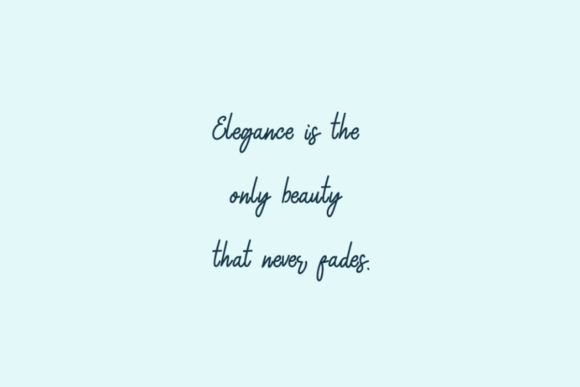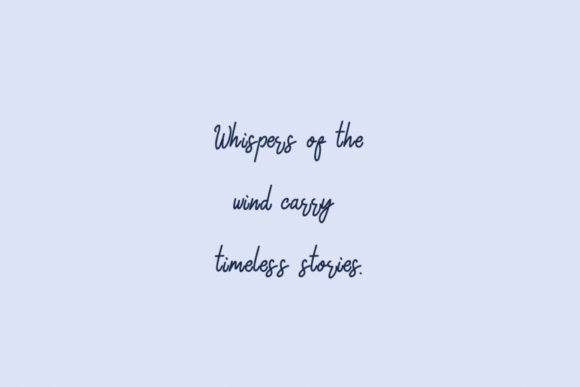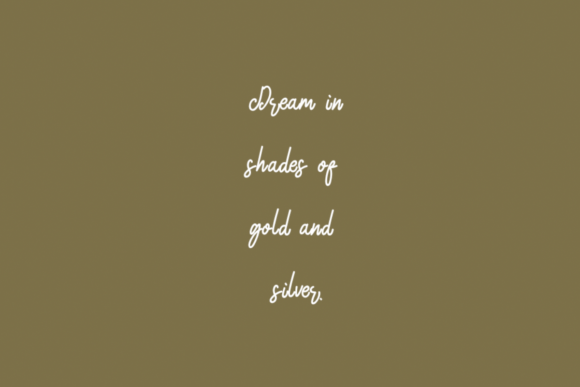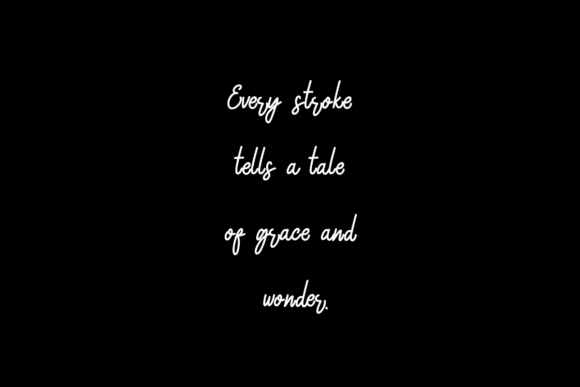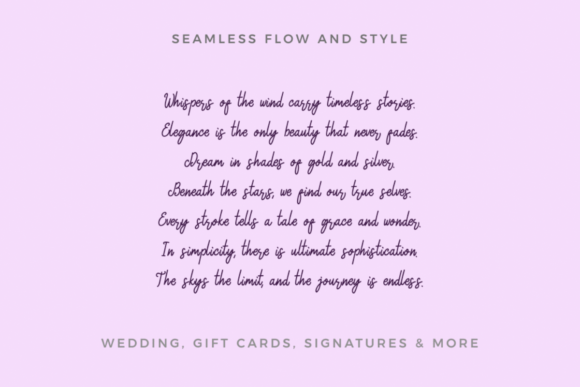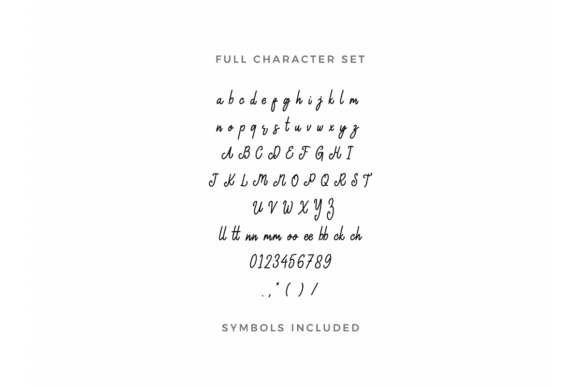
Introduction to Leandre Font
Have you ever found yourself pouring over a blank page, waiting for the perfect idea to strike? The blank canvas staring back at you can be daunting, but what if that blank space was waiting for a font like Leandre Font to bring it to life? This enchanting script font is a treasure trove of creative possibilities, perfect for designers seeking a unique design resource to elevate their projects.
With its distinctive, hand-lettered style, Leandre Font offers a refreshing alternative to the standard fonts often found in design software. Its charming, affectionate quality lends itself perfectly to creative projects where a personal touch is essential. Whether you’re working on a high-quality brochure, a blog post with a transparent background, or a social media campaign, Leandre Font is the perfect addition to your design arsenal.
Key Features of Leandre Font
- High-quality, professional font perfect for creative projects and design resources.
- Features a unique, modern design with clean lines and elegant typography.
Honest Review: Leandre Font
As a designer, I’m always on the lookout for high-quality design resources to elevate my creative projects. Recently, I stumbled upon Leandre Font, and I’m excited to share my thoughts on this free download.
- ✨ High-quality typography: Leandre Font boasts a clean, modern aesthetic that’s perfect for a wide range of creative projects.
- ⚠️ Limited font weights: While the font’s clean design is a major plus, I wish there were more font weights available to provide greater flexibility.
- ⚠️ Limited language support: Unfortunately, Leandre Font only supports a limited number of languages, which may be a concern for designers working on international projects.
Overall, I’m impressed with Leandre Font’s high-quality design and transparent background. While it has its limitations, it’s an excellent resource for designers looking to add a modern touch to their creative projects.
Leandre Font is ideal for various creative projects, including:
- Branding
- Documents